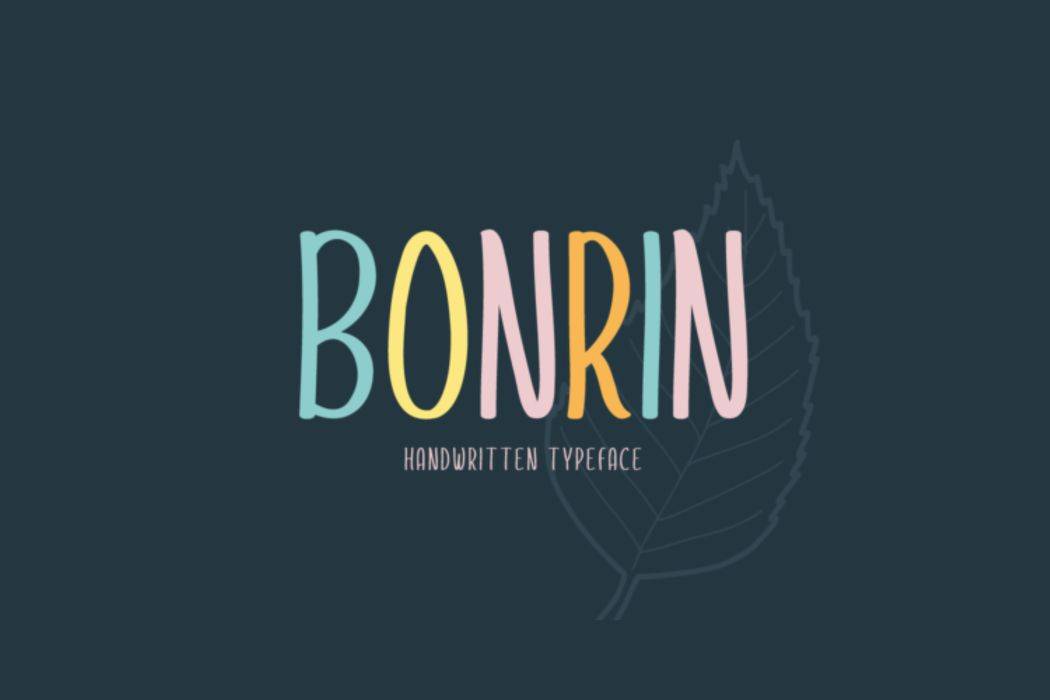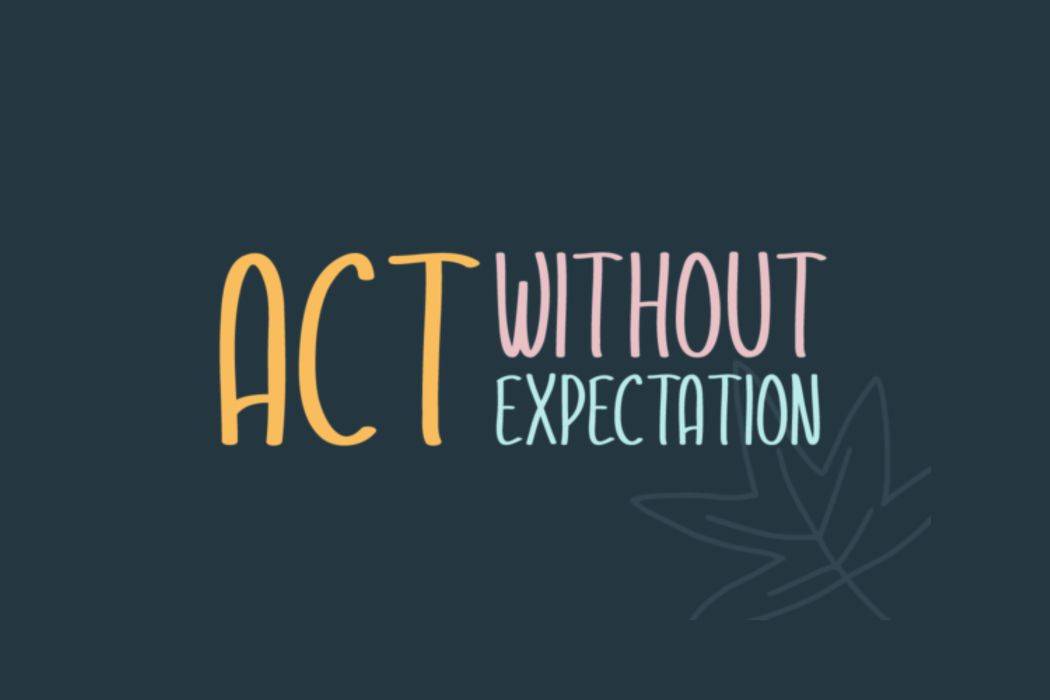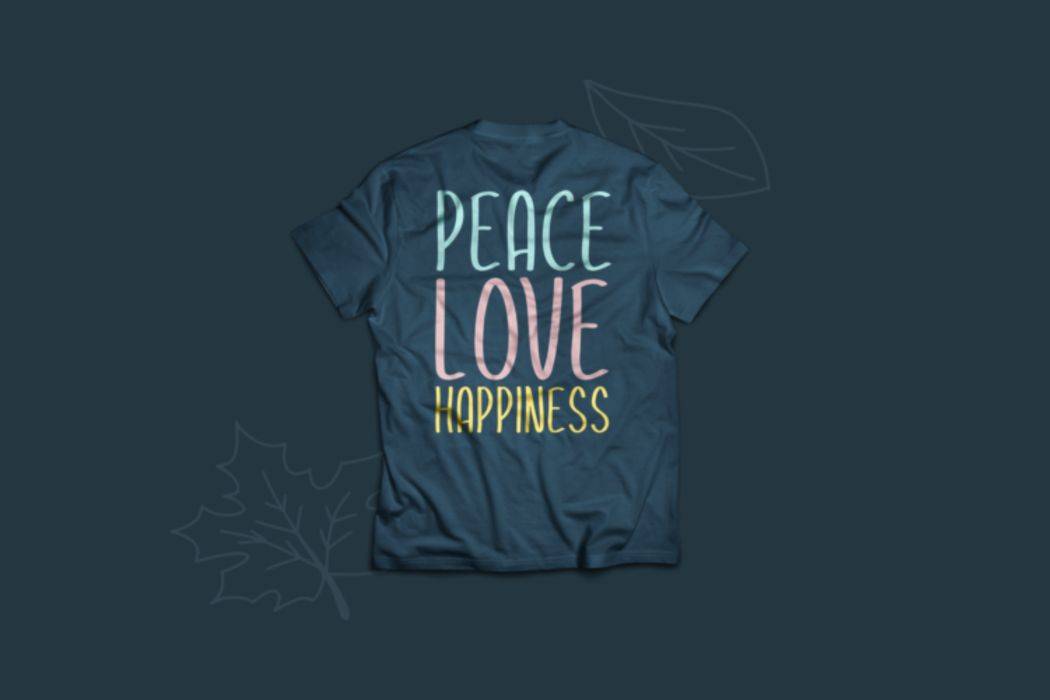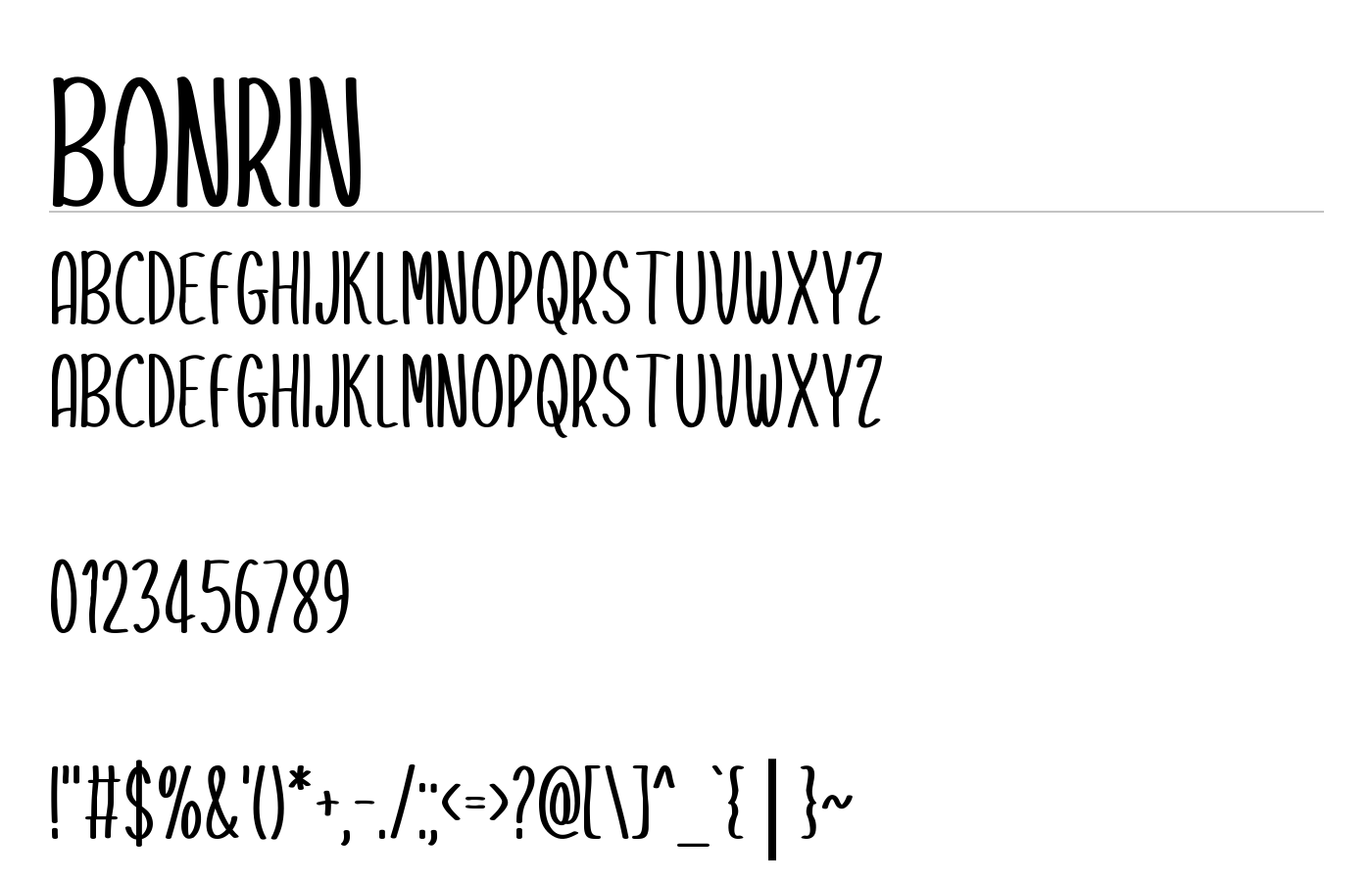
Bonrin is a playful, condensed sans serif font with tall, narrow characters that create a lively and informal feel. Its hand-drawn style and uneven strokes add charm and personality, making it perfect for creative projects, casual branding, and fun headlines that want to stand out with a friendly and approachable vibe.
Bonrin Font
About Bonrin Font